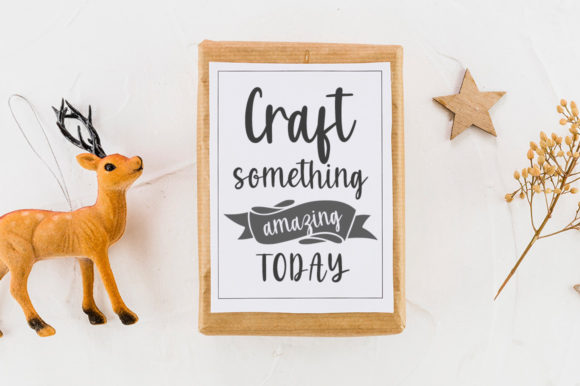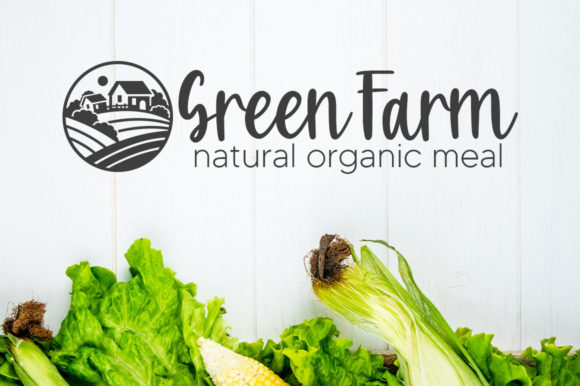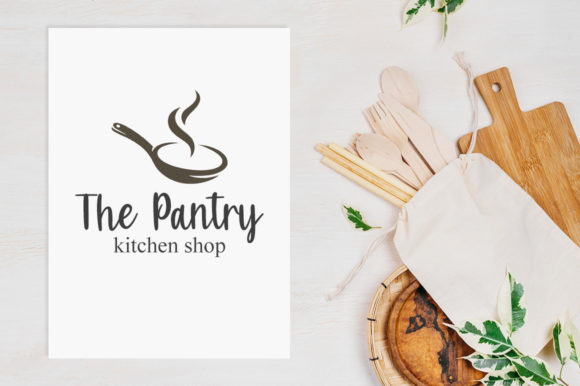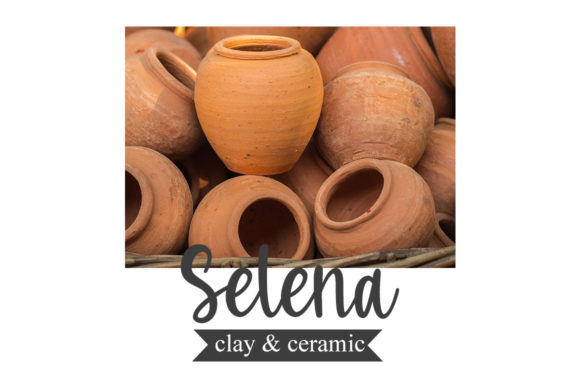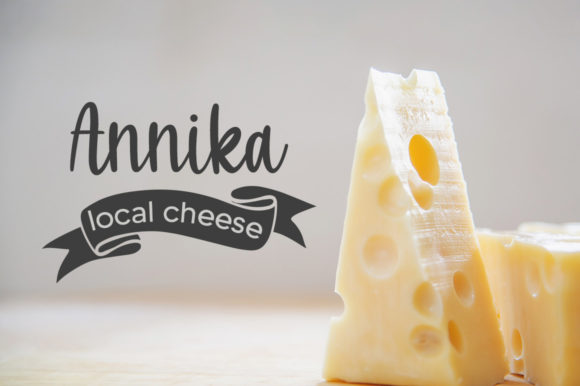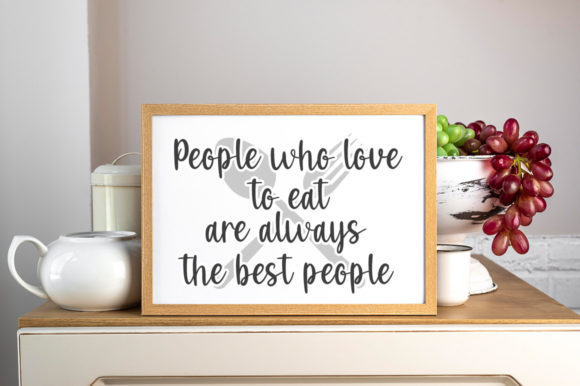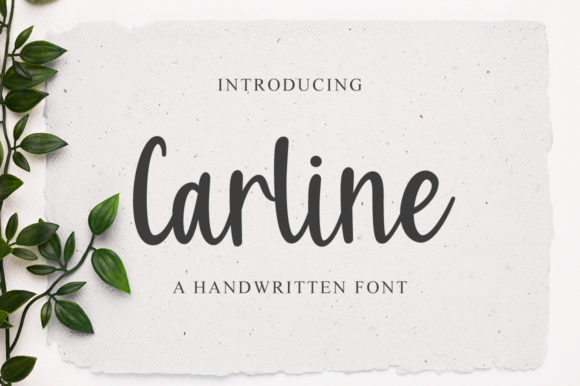
Introducing Carline Font: A Delicate and Elegant Handwritten Script
In the world of typography, a well-crafted font can elevate a design from ordinary to extraordinary. For designers and crafters seeking a touch of elegance and sophistication, the Carline font is an excellent choice. This beautiful, handwritten script boasts a delicate and flowing style that is sure to captivate audiences. In this article, we’ll explore the features and benefits of the Carline font, and why it’s a must-have for any creative project.
A Delicate and Elegant Design
Carline is a stunning example of a handwritten font, with a delicate and elegant design that exudes refinement and poise. The characters are beautifully crafted, with flowing lines and curves that create a sense of movement and fluidity. This font is perfect for designs that require a touch of sophistication, such as wedding invitations, branding, and packaging.
Well-Balanced Characters
One of the standout features of the Carline font is its well-balanced characters. Each letter is carefully crafted to ensure that the font looks beautiful and harmonious, making it easy to read and visually appealing. The balanced design of Carline allows it to match a wide pool of designs, from modern and minimalist to vintage and ornate.
Carline font is PUA (Private Use Area) encoded, which means that you can access all of the glyphs and swashes with ease. PUA encoding allows designers to access a wide range of characters, including special glyphs and ligatures, making it easy to add a personal touch to your designs. With Carline, you can effortlessly create beautiful and unique typography that sets your design apart.
Perfect for a Wide Range of Designs
The versatility of the Carline font makes it perfect for a wide range of designs, including:
- Branding and packaging
- Digital media and advertising
Why Choose Carline Font?
So, why choose the Carline font for your next design project? Here are just a few reasons:
- Elegant and sophisticated design: Carline adds a touch of refinement and poise to any design.
- Well-balanced characters: The font’s balanced design makes it easy to read and visually appealing.
- PUA encoded for easy access: Access all of the glyphs and swashes with ease, making it simple to add a personal touch to your designs.
- Versatile: Carline is perfect for a wide range of designs, from wedding invitations to branding and packaging.
In conclusion, the Carline font is a beautiful and elegant handwritten script that is perfect for designers and crafters seeking to add a touch of sophistication to their designs. With its delicate and flowing style, well-balanced characters, and PUA encoding, Carline is a versatile font that can be used for a wide range of projects. Whether you’re designing a wedding invitation, branding a product, or creating a digital graphic, Carline is an excellent choice. So why not give Carline a try and see how it can elevate your designs to the next level?